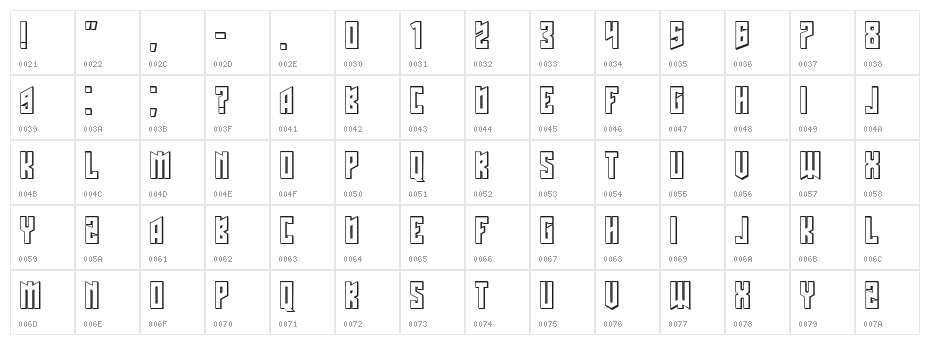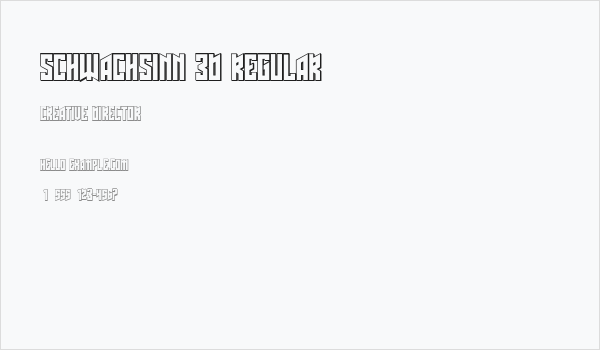
Schwachsinn 3D Regular Font
Schwachsinn 3D Regular Description
This font features a bold, three-dimensional design with a strong geometric influence. The characters are outlined, giving them a distinct shadow effect that enhances their 3D appearance. The uppercase letters are angular and sharp, with a futuristic and industrial feel. The numbers and special characters maintain this style, ensuring consistency across the font. The overall look is striking and attention-grabbing, making it ideal for projects that require a bold statement.
| Overall Style | Modern, Futuristic |
| Proposed Projects | Ideal for posters, video game titles, sci-fi themed projects, and branding that requires a bold, modern look. |